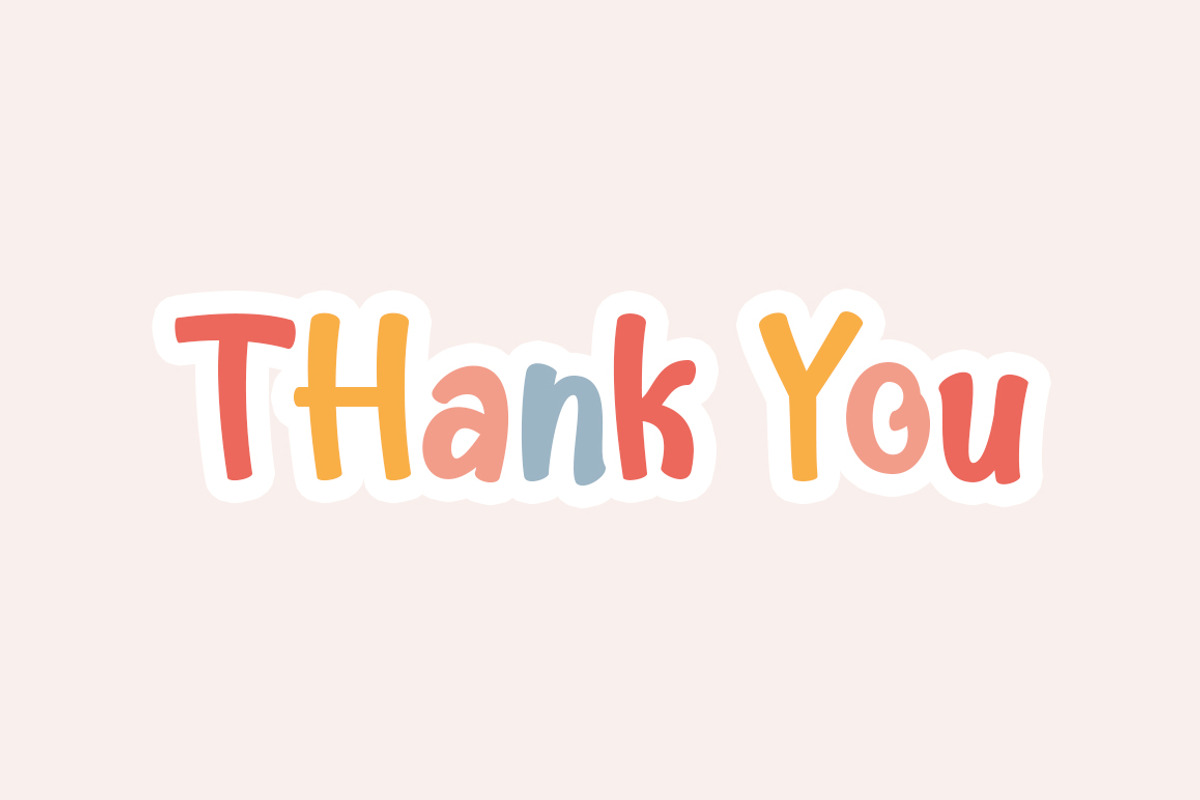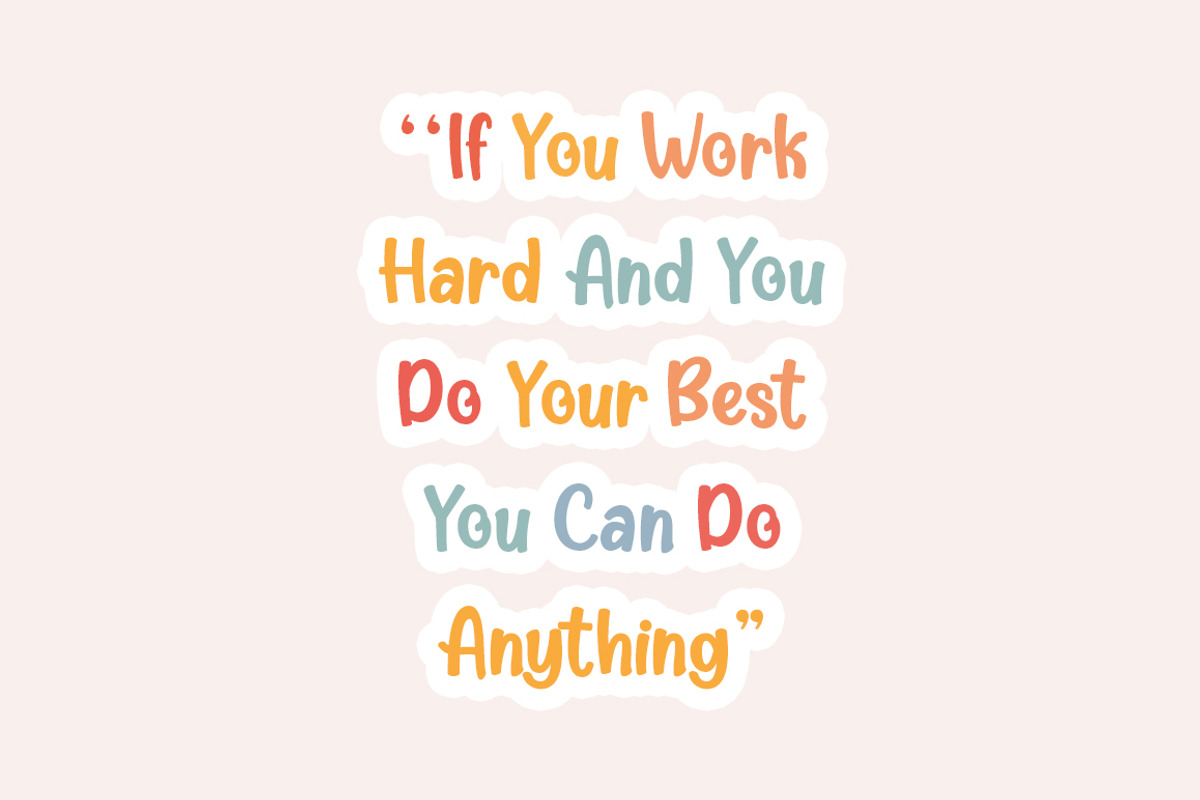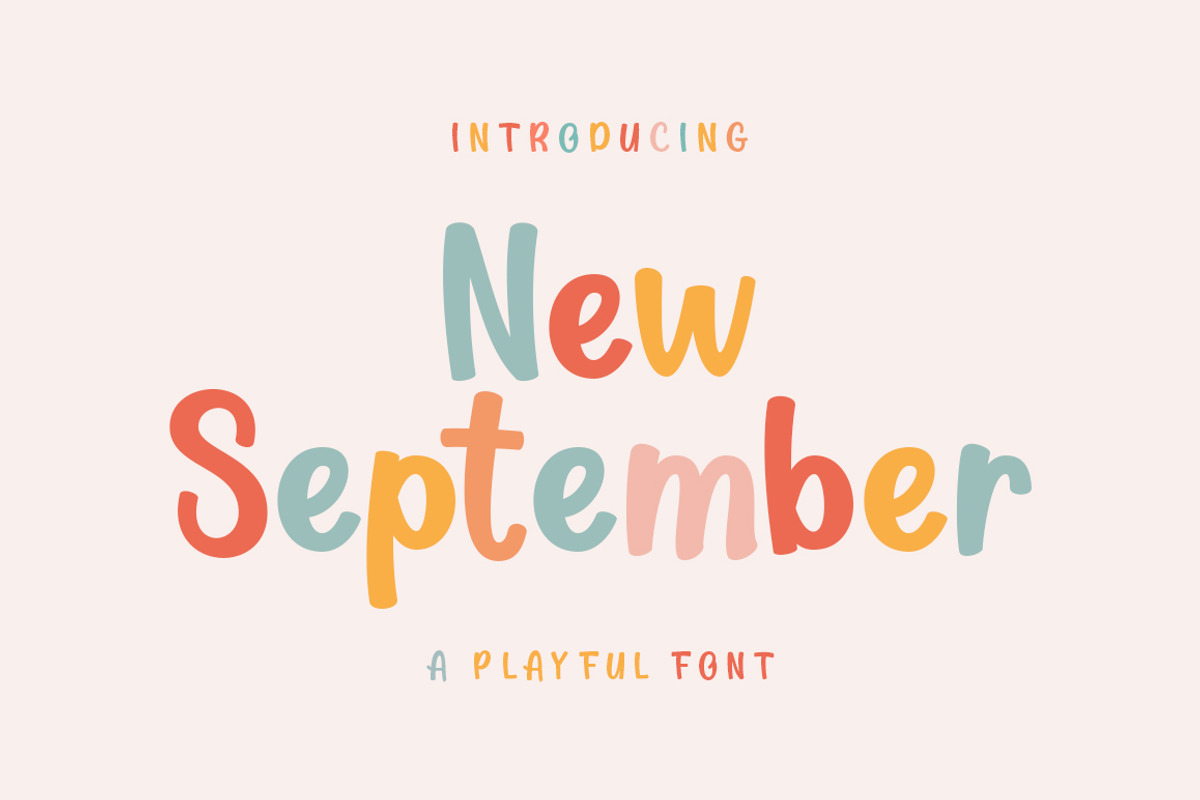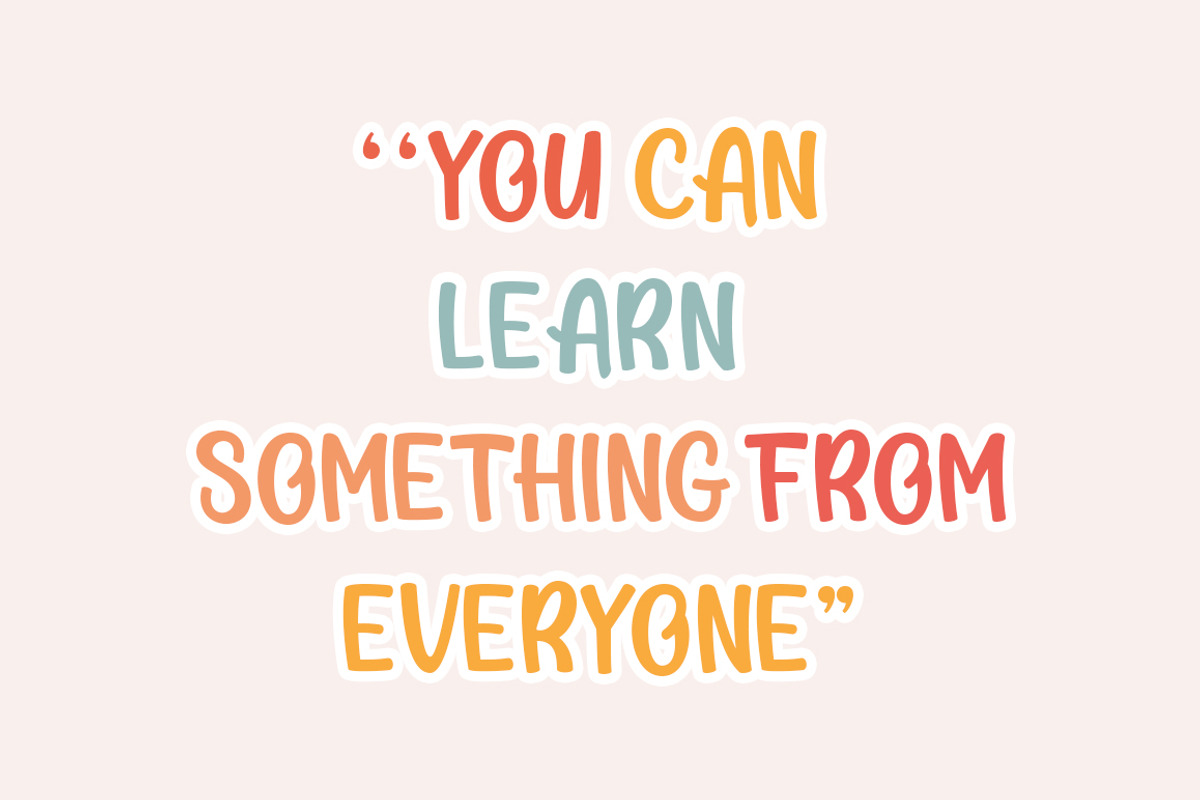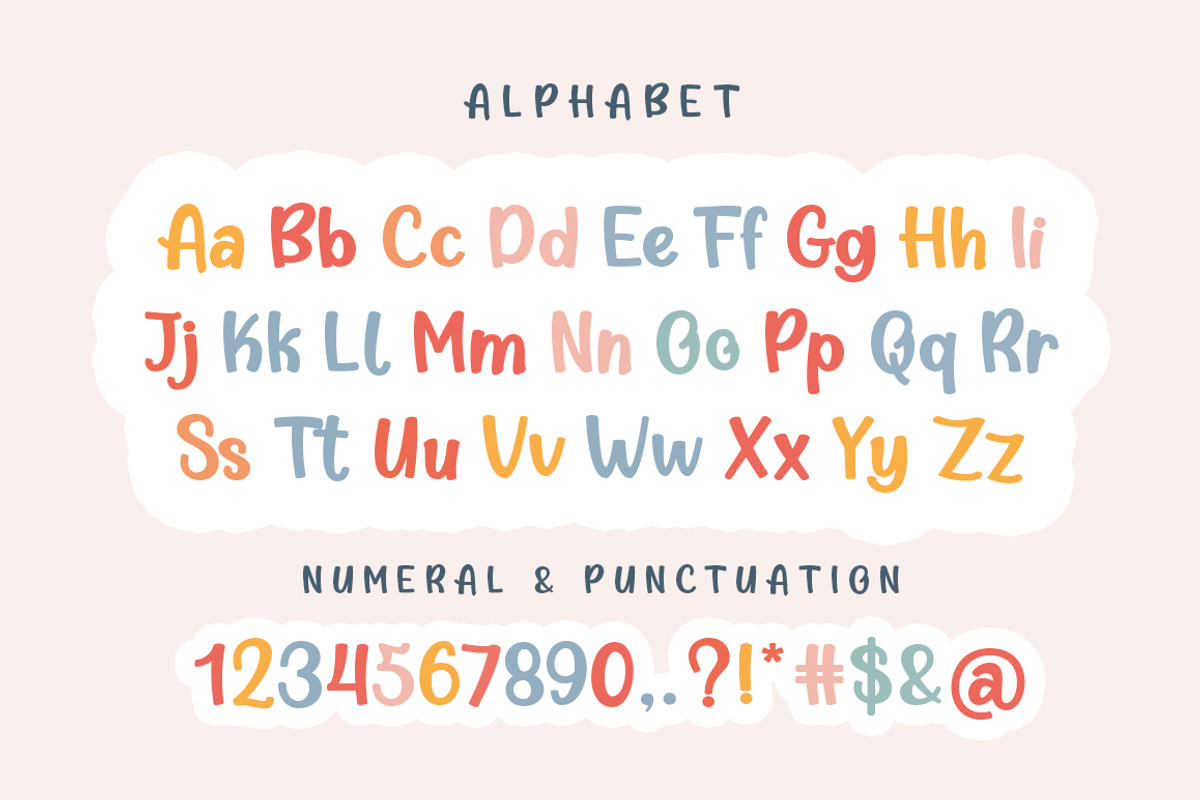
New September
New September is a whimsical and fun display font. Looks great on a variety of design ideas that need a trendy touch. Whatever the topic, New September will be a great asset to your font library, as it has the potential to enhance any creation.
The New September is also made with the crafter in mind: there are no closed counters in either type, meaning they can easily be used for stencils and electronic cutters like the Cricut and Silhouette lines.